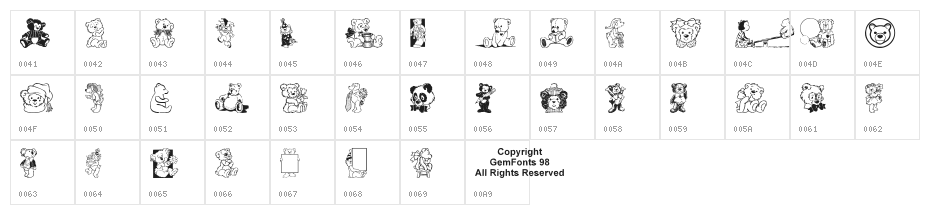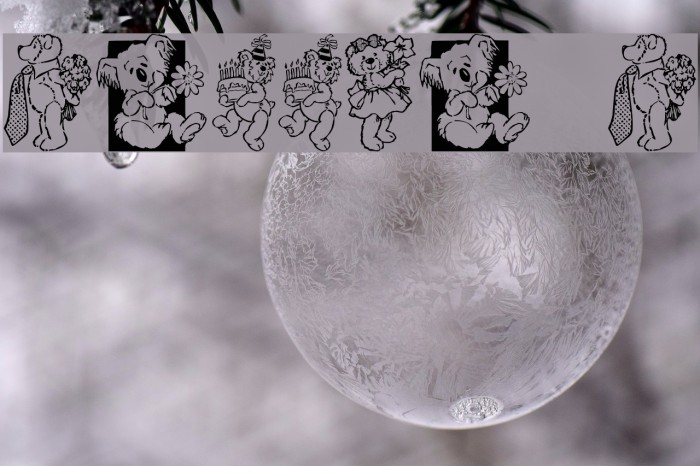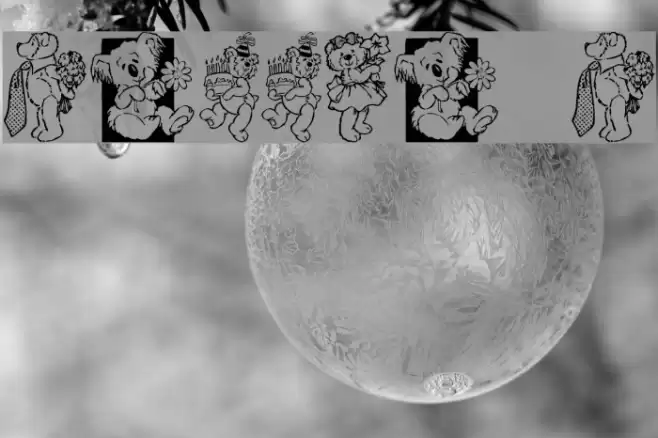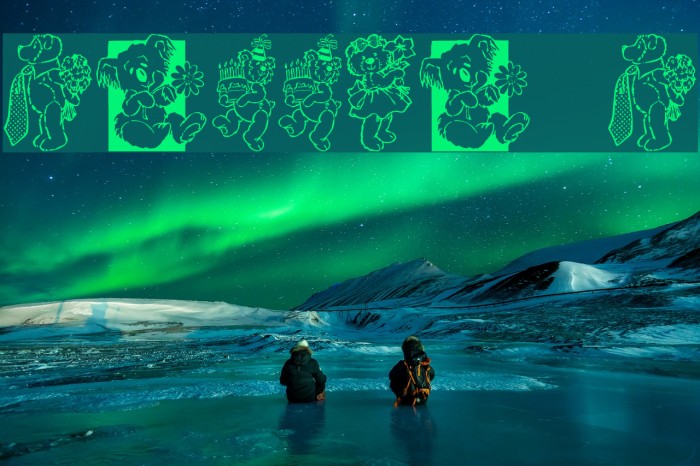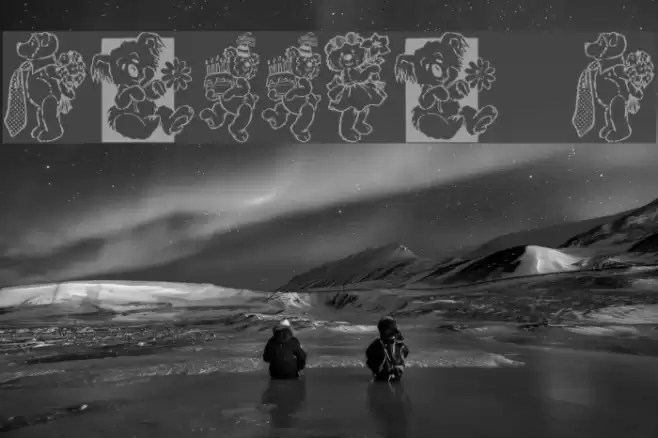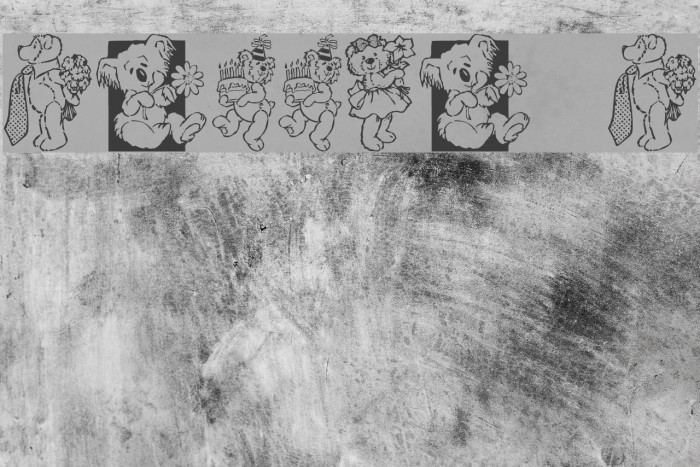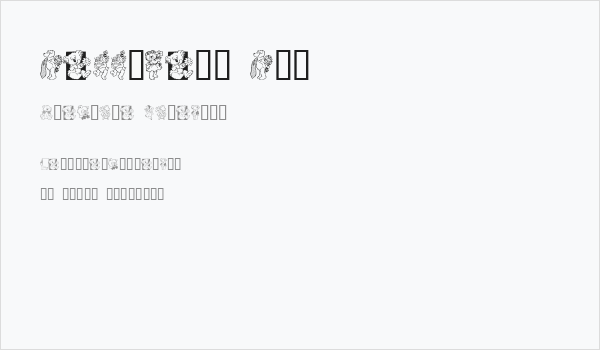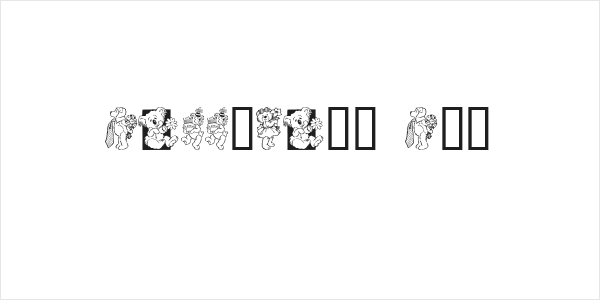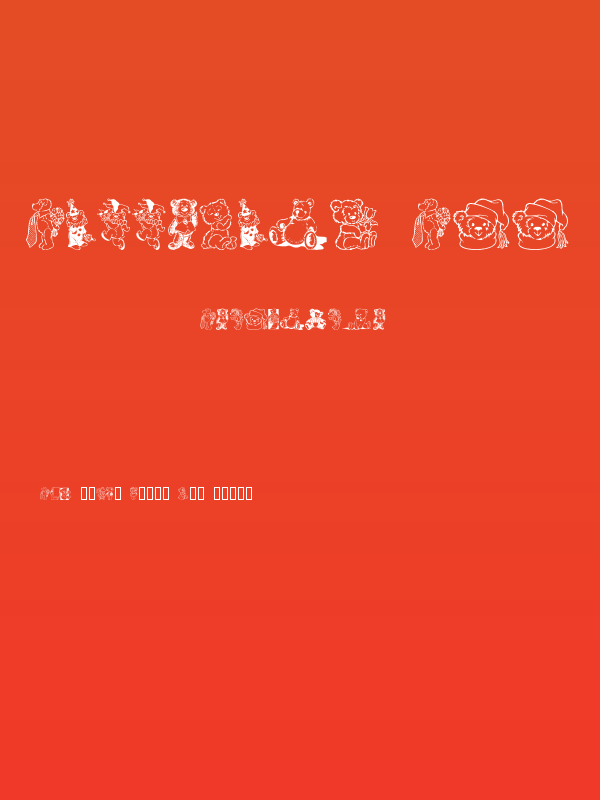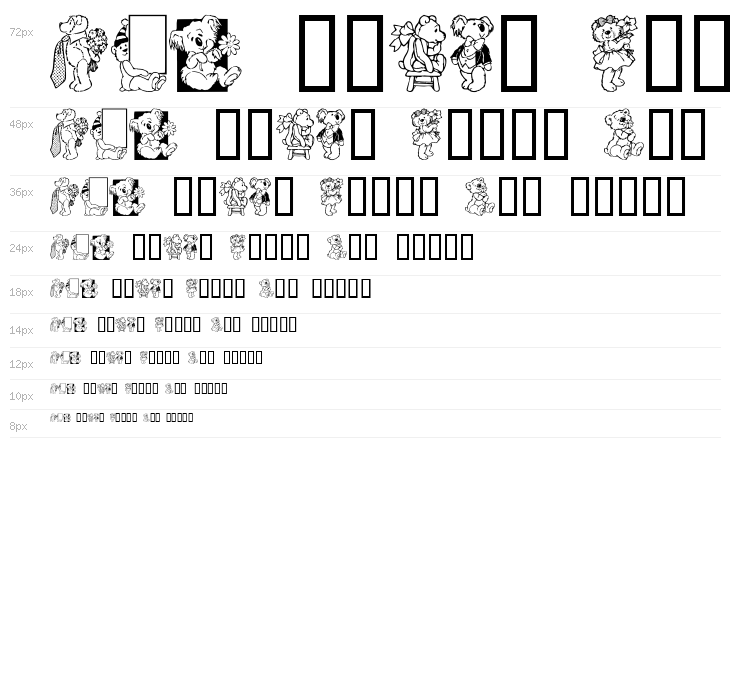
Teddybers Too Font
Teddybers Too Description
A decorative font featuring playful, detailed illustrations of teddy bears and related characters for each letter and symbol, with a whimsical and childlike aesthetic. The glyphs are highly pictorial rather than traditional letterforms.
| Overall Style | Decorative, Whimsical, Childlike |
| Use Case | Logos, Headlines, Themed graphics, Children's materials |
| Proposed Projects | Children's party invitations, nursery decor, greeting cards, playful branding, educational materials. |